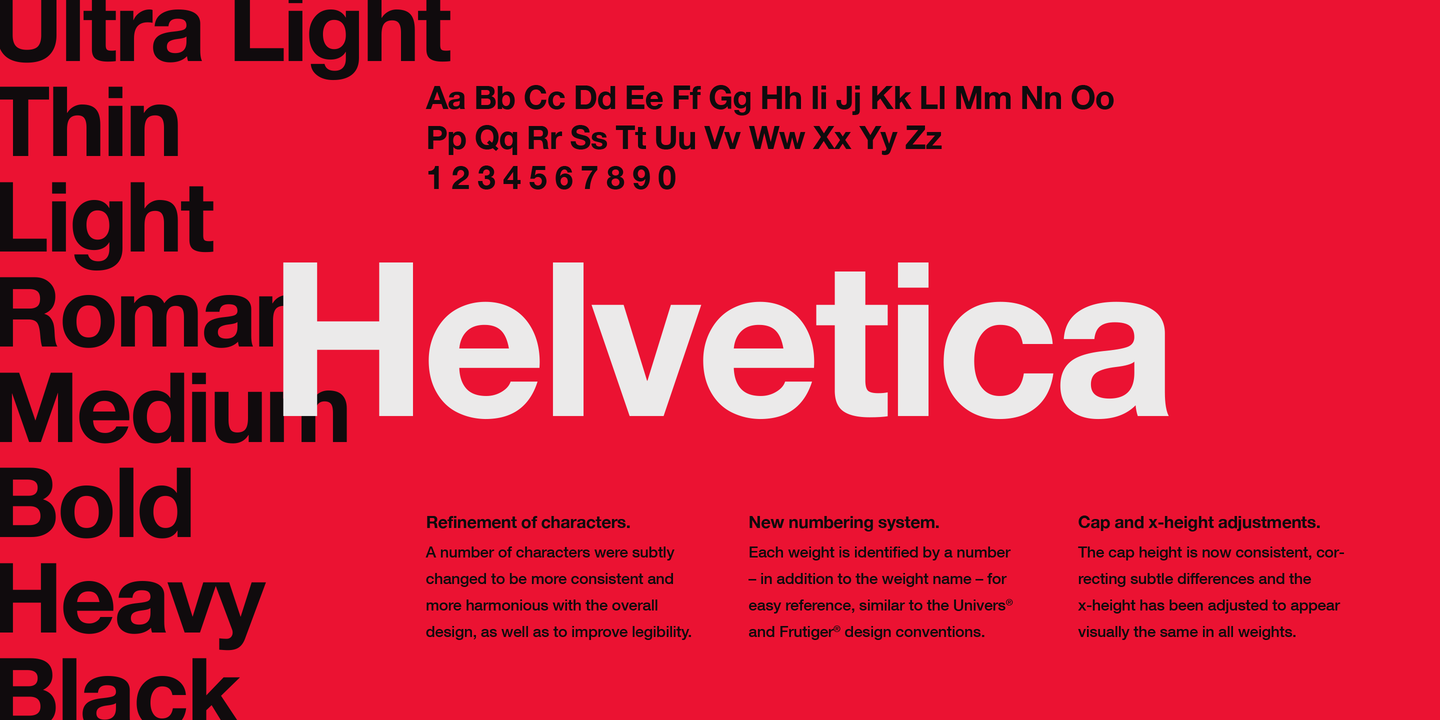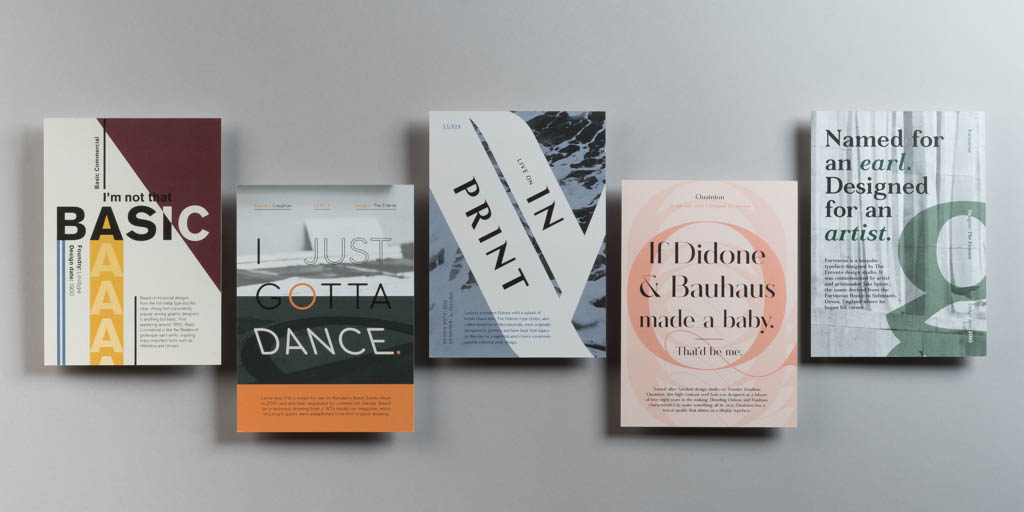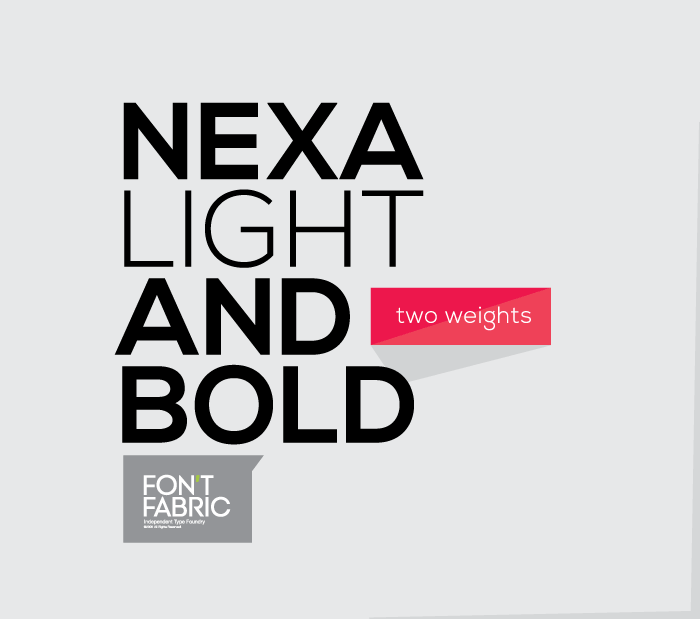
Survey reveals designers’ favourite typefaces
In a piece of research conducted jointly by MOO and CR, designers based in the UK ranked their favourite fonts, revealing their ‘go-to’ typefaces and the more contemporary fonts they most like to use
MOO set out to discover designers’ preferred typefaces and reached out to some of our readers earlier in the year. Thank you to the 1,161 of you who responded, and helped us shed light on the subject. The respondents, all UK-based, came from a range of company types and seniority levels.
‘GO-TO’ TYPEFACES
Unsurprisingly, tried and trusted Helvetica came top, as the respondents’ ‘go-to’ typeface of choice, closely followed by Avenir, Gill Sans and Futura.
Interestingly, Helvetica seems to hold equal appeal for young and old, with both junior and senior designers making it their top choice. Avenir, designed by Adrian Frutiger in 1988, was consistently picked as second favourite.
‘UP-AND-COMING’ FONTS
The survey also asked designers their thoughts on more recently developed typefaces. Nexa was a distinct favourite with over a fifth of the respondents choosing it as their preferred ‘up-and-coming’ font. Interestingly, Nexa is a free typeface developed by Fontfabric type foundry and much like Helvetica is a simple, sans serif typeface.
Besides Nexa, Basis Grotesque and Freight Sans won favour. Basis Grotesque is a very new typeface, released in 2015 by Colophon Foundry. The designers cite Akzidenz and various early Grotesques from Monotype as inspirations for the typeface. Freight Sans, meanwhile, was created by GarageFonts.
MOO’s Global Creative Director Brendan Stephens says: “The shared simplicity and fundamental nature of the top-scoring fonts show that the world of design has reverted to mastering the basics.” He believes the results indicate that creatives today value reliability and minimalism.